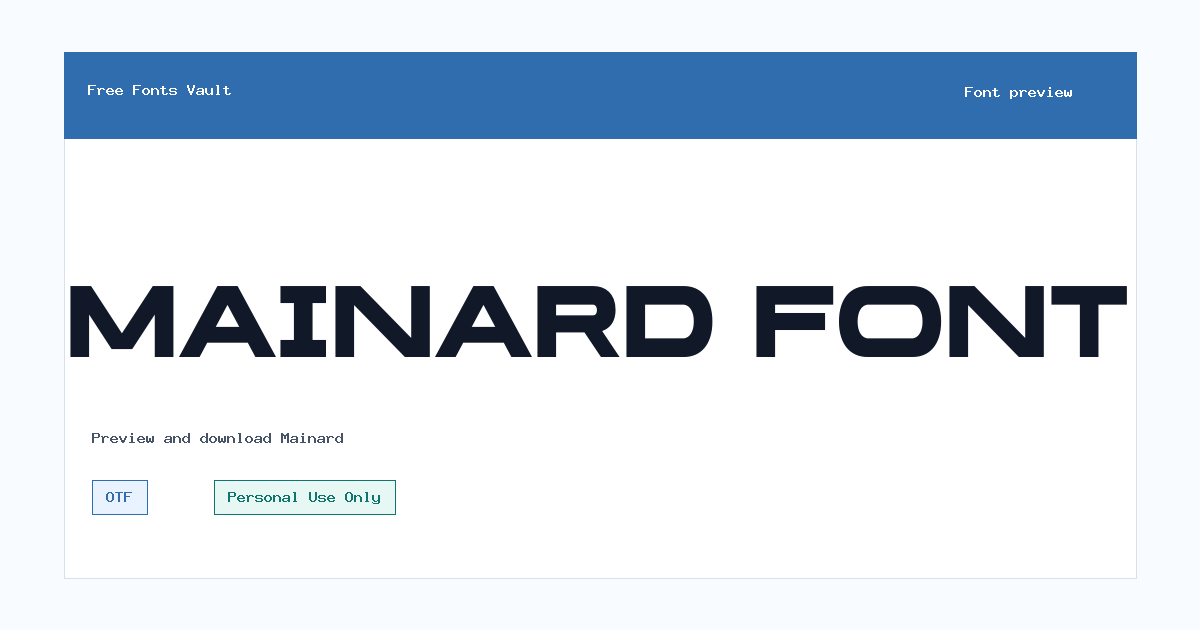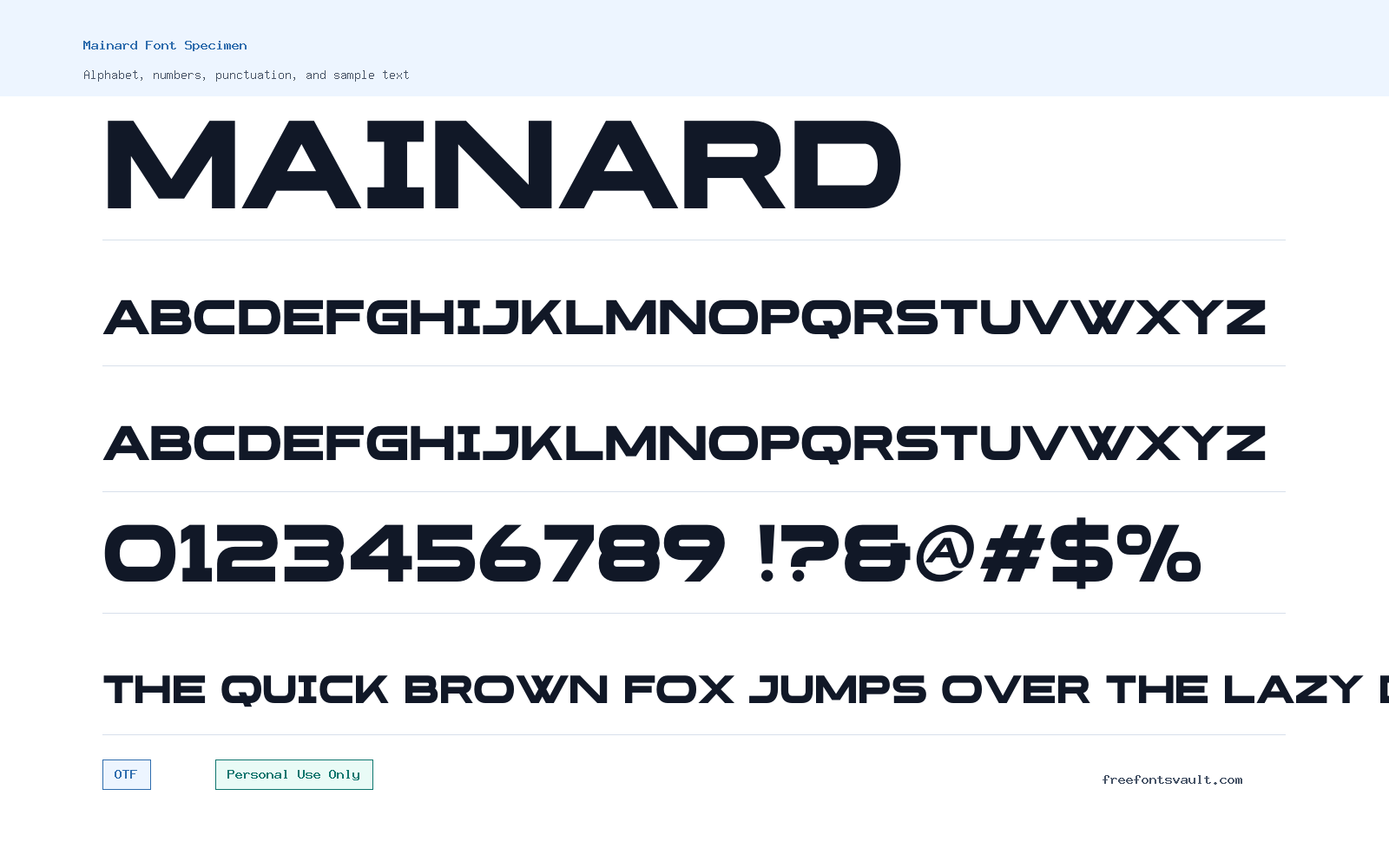
Mainard
Mainard Font
• Designer Annisa Febriani
• Foundry Masyafi Studio
Mainard font.
Mainard is a sans serif font family designed for visitors who need a clean display option for personal projects. It comes as a regular OTF font file, so it is easy to test in the preview box before downloading.
About Mainard Font
Mainard has the kind of simple sans serif structure that works best when the text needs to feel neat, modern, and easy to scan. Because the downloadable style is a regular weight, it is most useful for short titles, nameplates, social graphics, small poster text, personal branding drafts, and layout mockups. It is not a large multi-weight family, so it should be treated as a focused display or general-use style rather than a complete typography system. Try it with your own words in the preview tool, especially if you plan to use it for headings, labels, or a short phrase where spacing and letter shape matter.
For longer reading, test Mainard at smaller sizes before committing to a full design. A single regular weight can look clean in headings but may need help in body copy, captions, or dense paragraphs. Pair it with a plain, readable serif or a neutral sans serif that offers several weights, then let Mainard handle the more visible text. If your design uses all caps, numbers, or mixed punctuation, preview those characters first so you can catch spacing issues early. For posters and social posts, give the letters enough breathing room and avoid placing them over busy images unless you add contrast behind the text.
• Clean sans serif style suited to short, personal-use display text and layout testing
Mainard is credited to designer Annisa Febriani and foundry Masyafi Studio.
Who designed Mainard?
Mainard is credited to Annisa Febriani, with Masyafi Studio listed as the foundry.
Should I use Mainard for long paragraphs?
Test it carefully first. Since the listed download is a regular style only, it may work better for short visible text than for long reading sections.